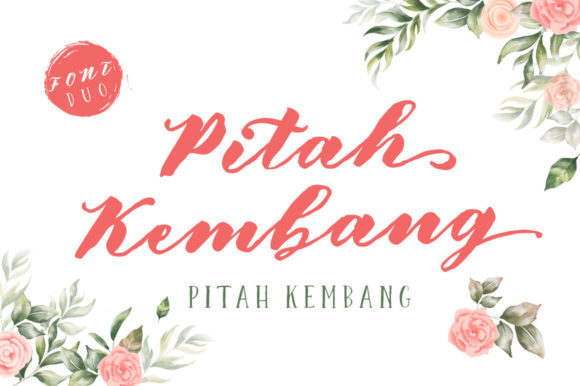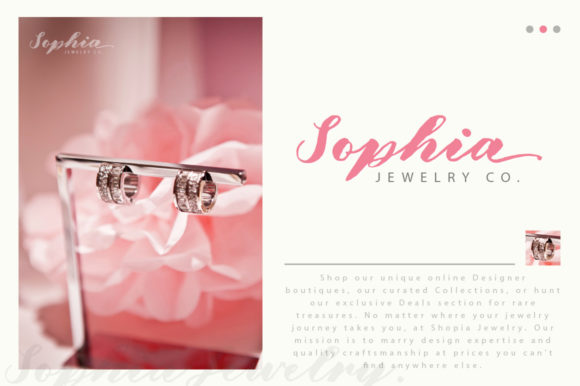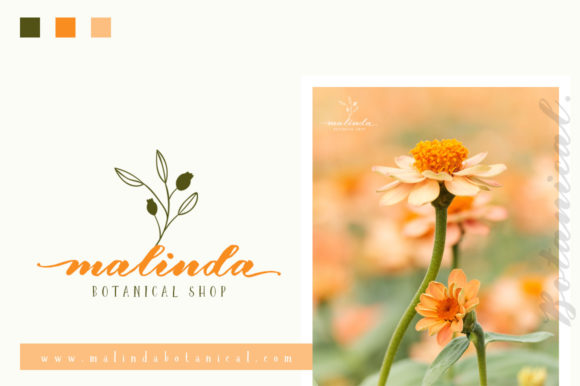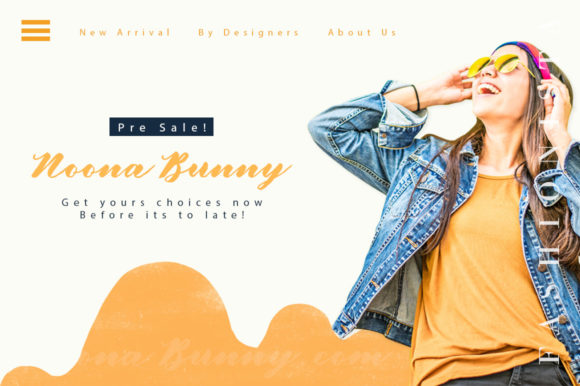
About Pitah Kembang Font
Pitah Kembang consists of two fonts designed to complement each other perfectly. Together or apart, these fonts are ideal for adding a chic and cheery touch to your crafts. This font is PUA encoded which means you can access all glyphs and swashes with ease!